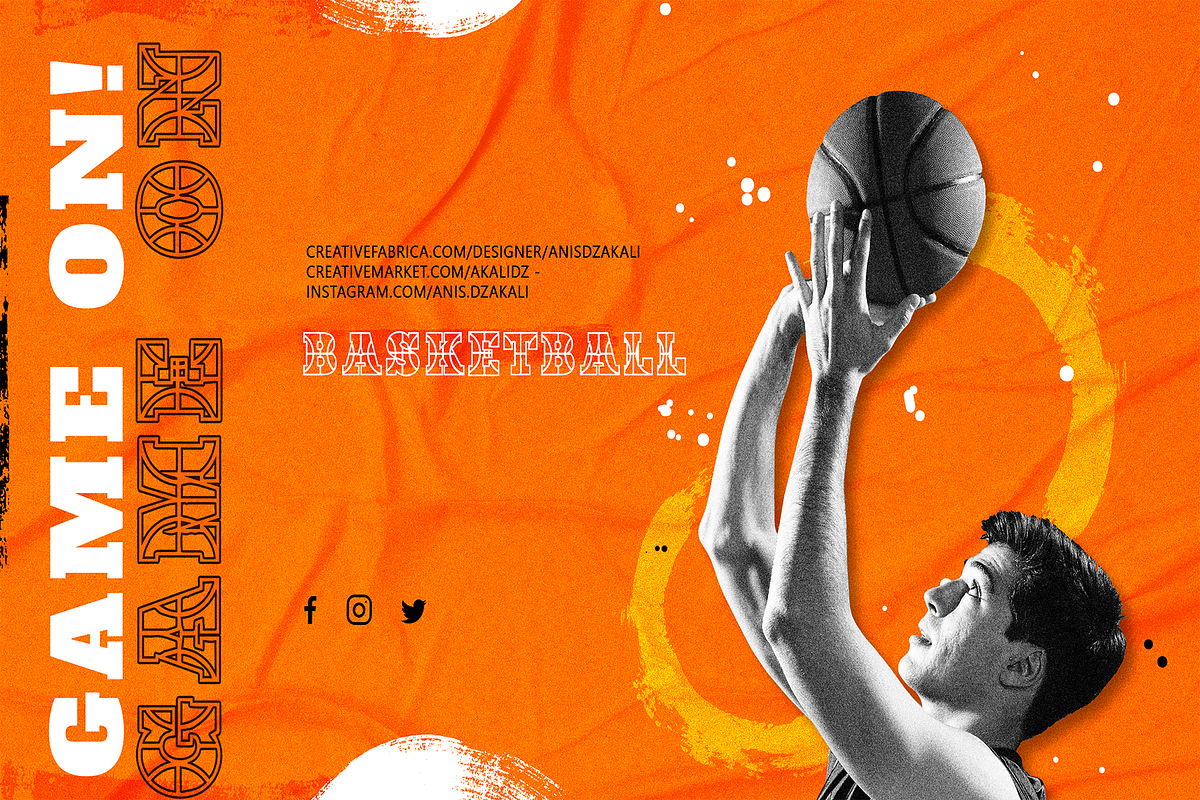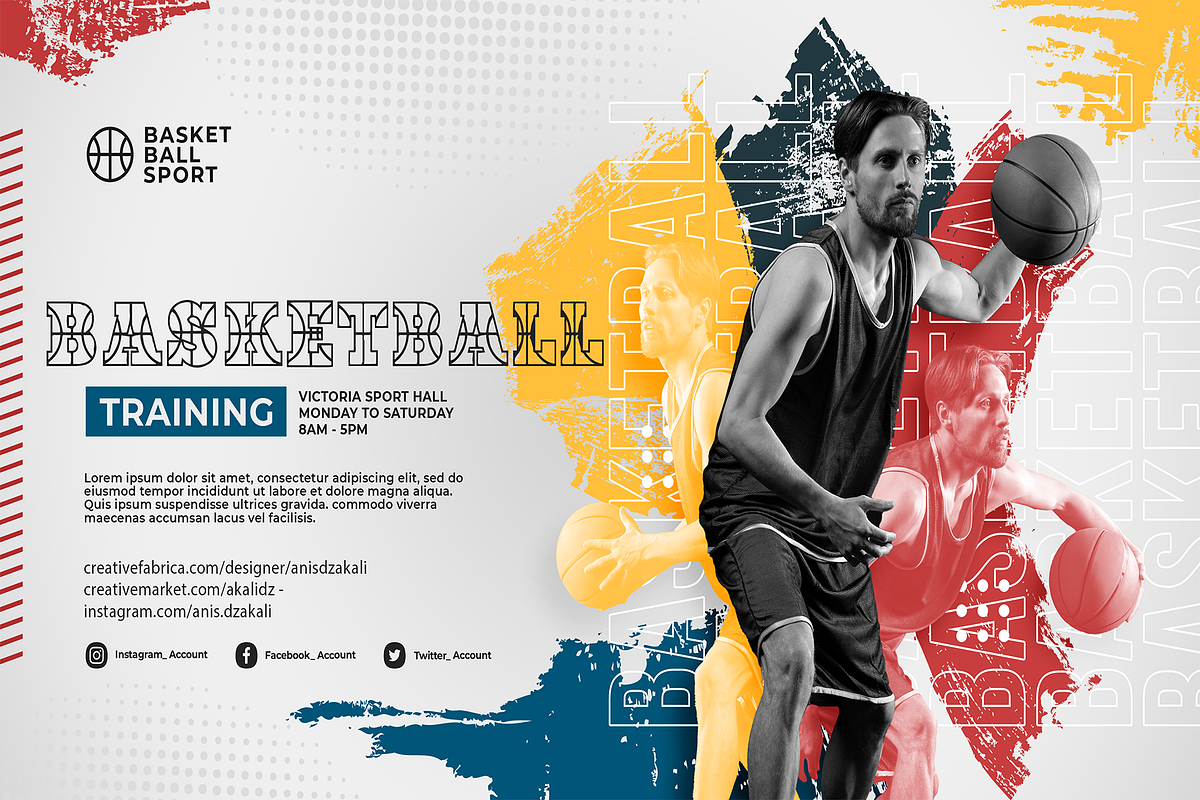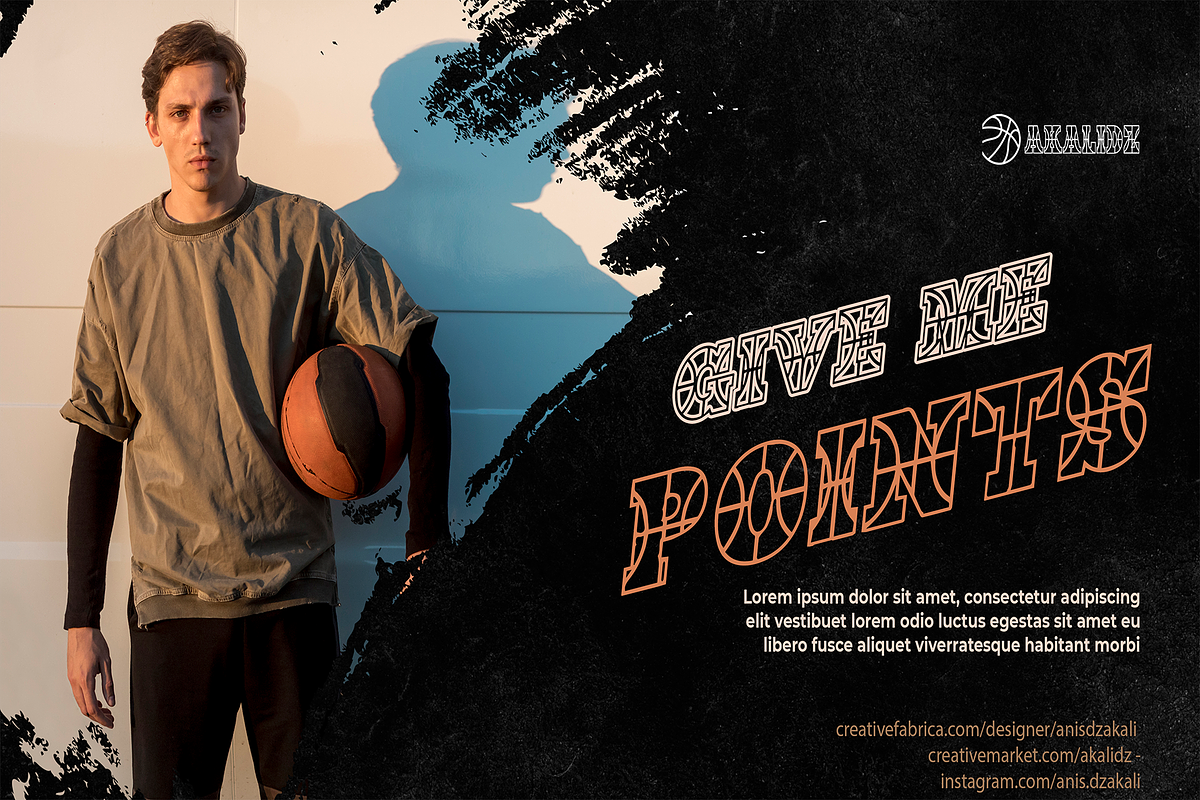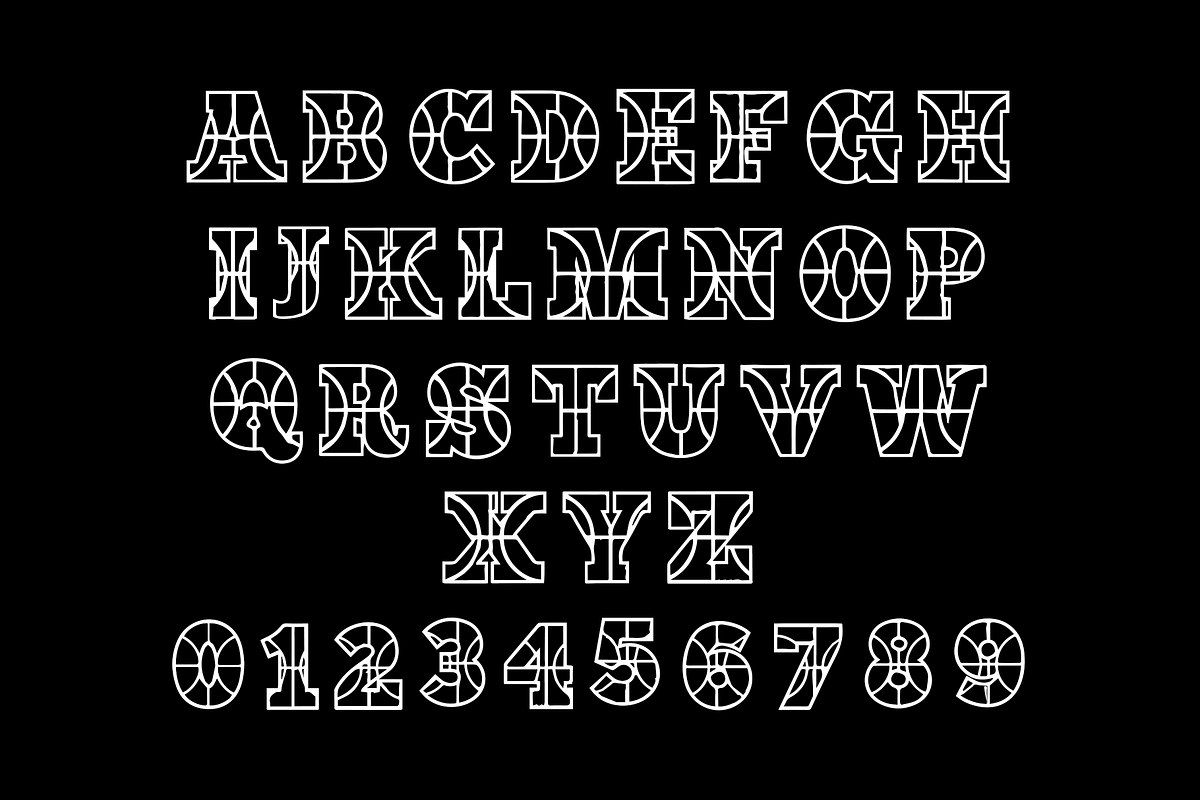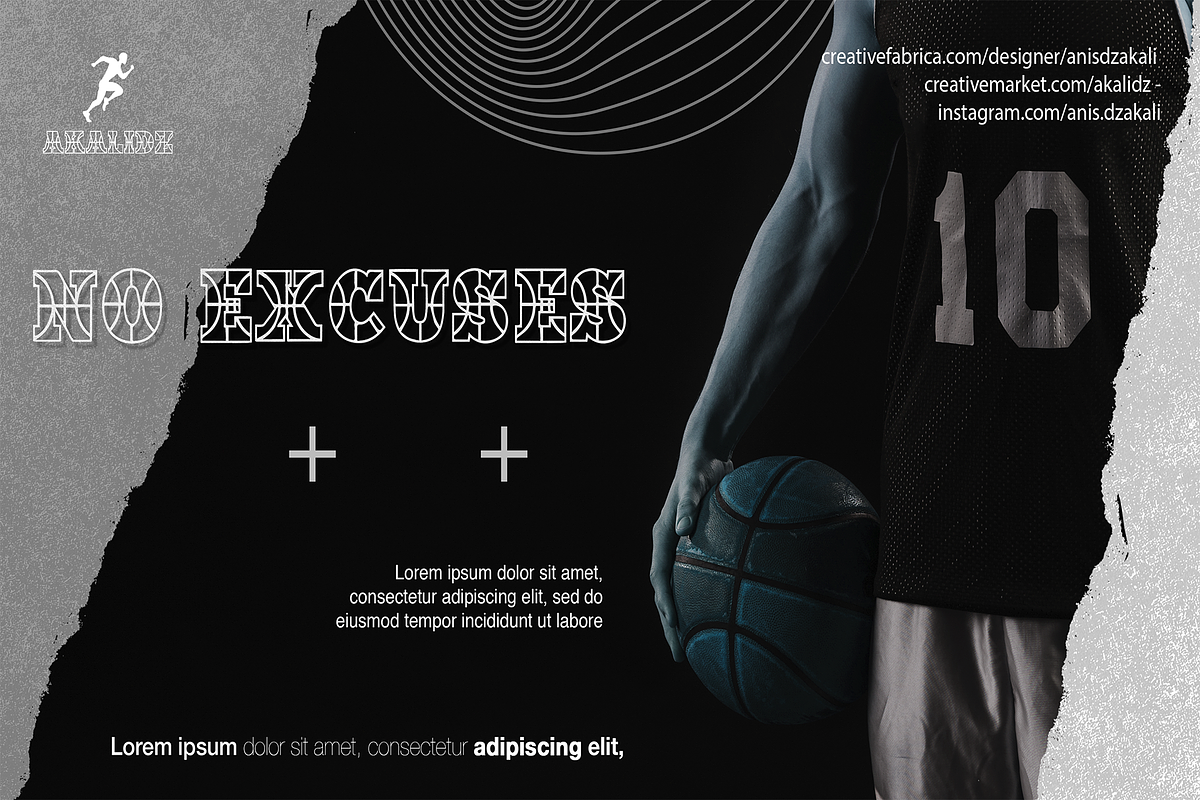
BASKETBALL
BASKETBALL is a chic and distinct script font. No matter the topic, this font will be an incredibly asset to your fonts’ library, as it has the potential to elevate any creation.